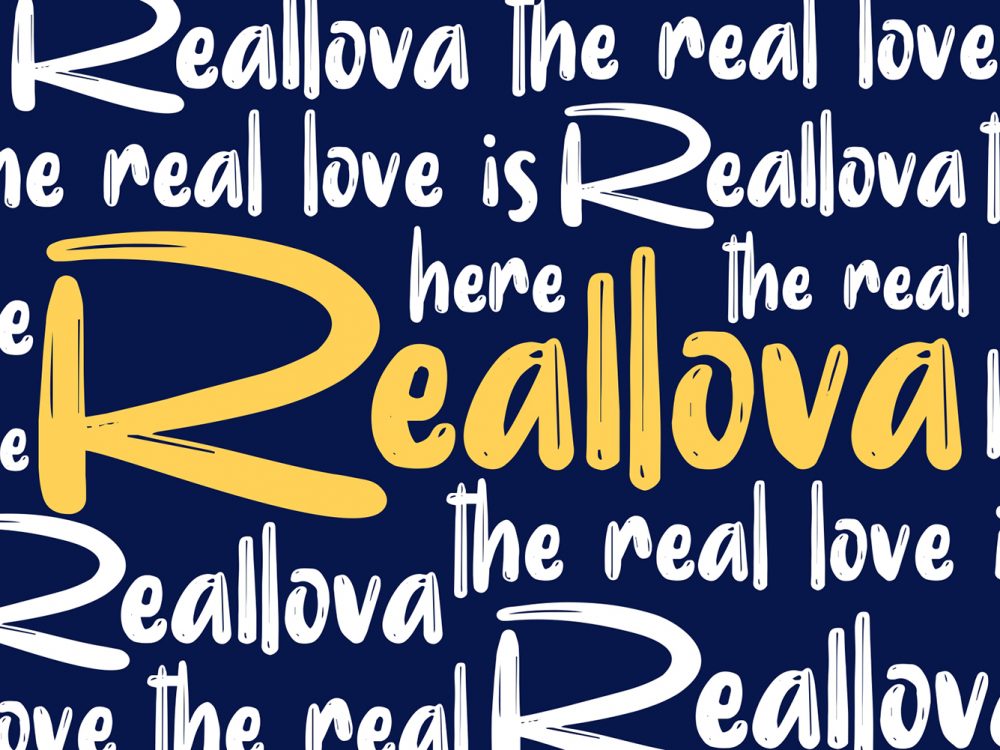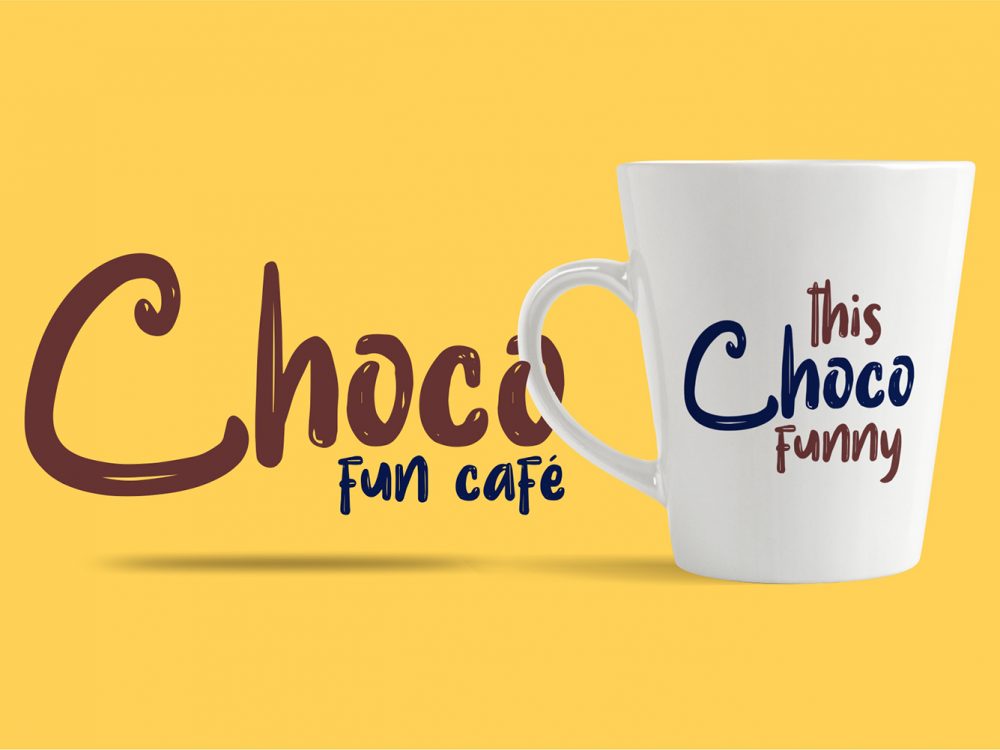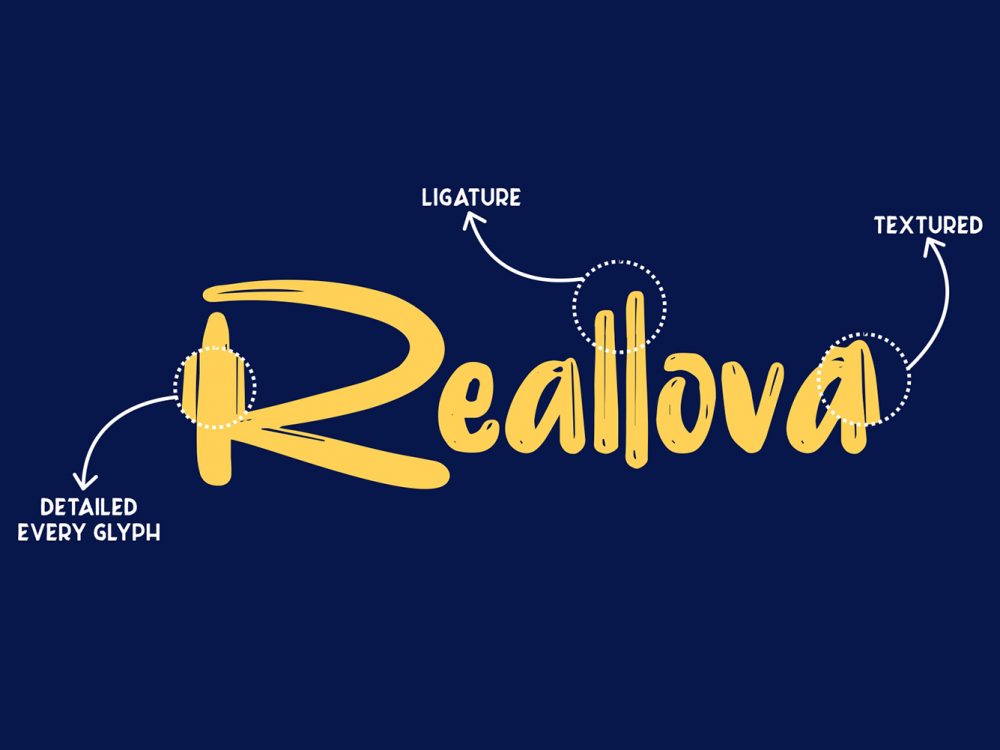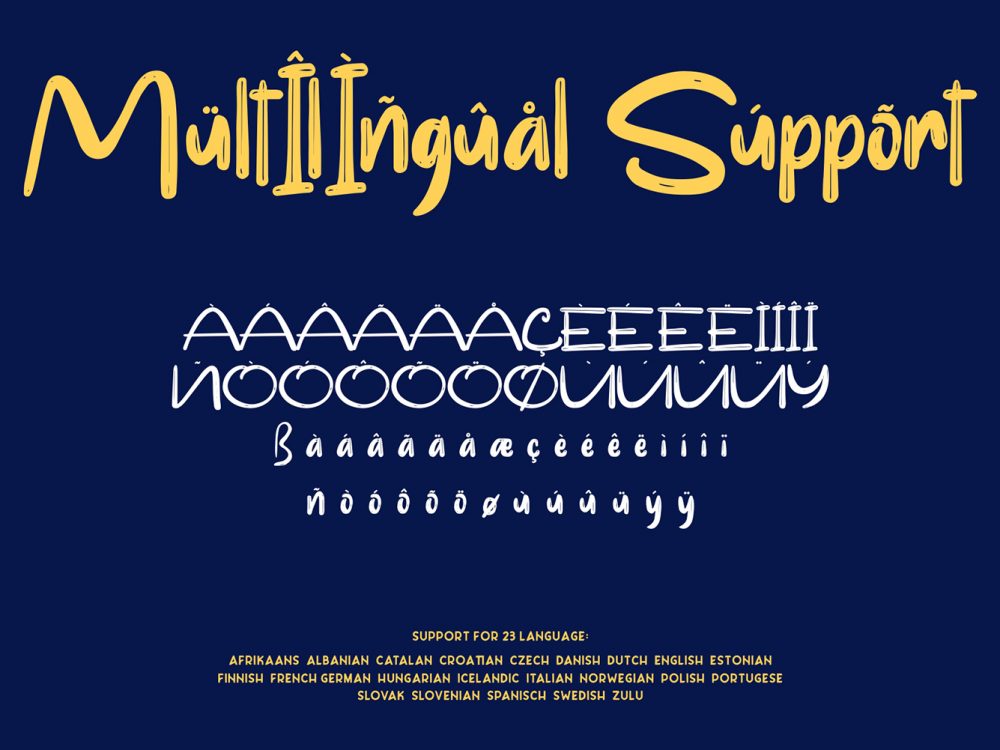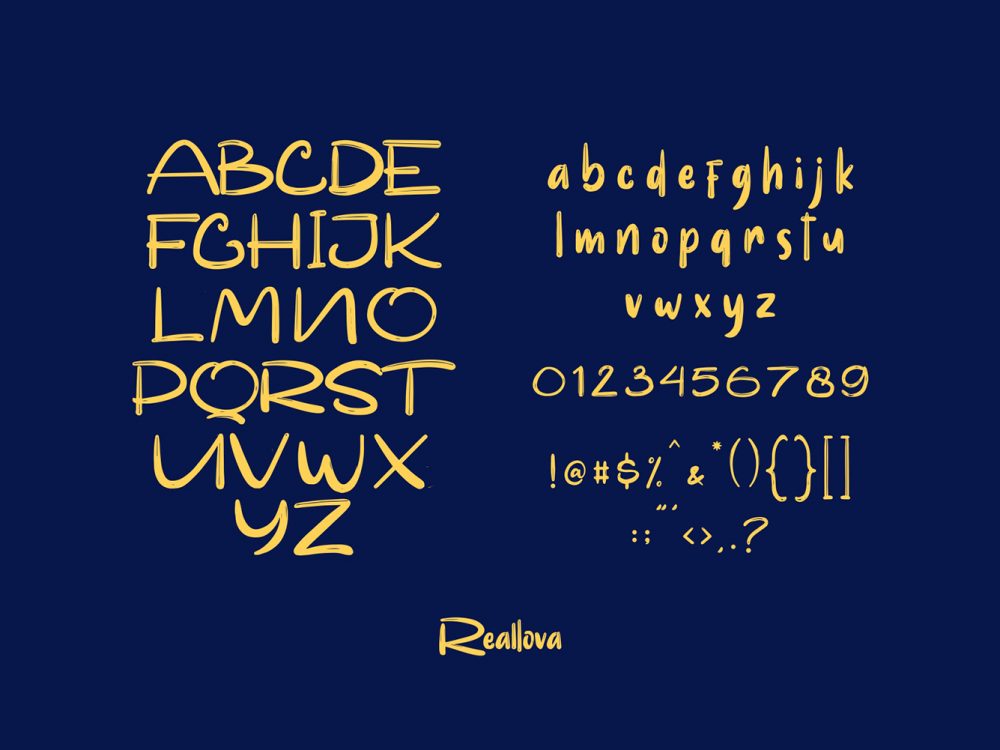
Reallova Free Font
Reallova Free Font is a modern and stylish sans-serif typeface that is perfect for a wide range of projects. The font, created by the talented team at Garisman Studio, features clean and sleek lines, with a minimalist and contemporary design that is sure to make a statement.
The font is available in a range of weights, from light to bold, allowing you to choose the perfect fit for your specific project. Whether you’re designing a website, creating a presentation, or simply looking for a unique and eye-catching font for your next project, Reallova Free Font is a versatile and stylish choice.